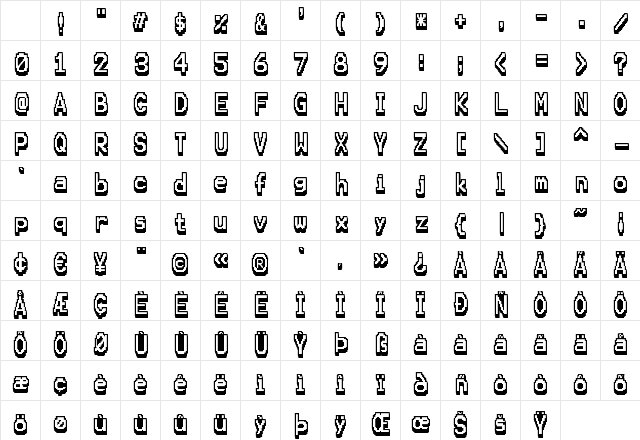
Complete Karma Future Regular glyph index. Displaying only characters natively supported by Karma Future Regular font.
Karma Future has a distinctly futuristic character, with geometric precision and clean angles that feel at home in technology, gaming, and sci-fi contexts.